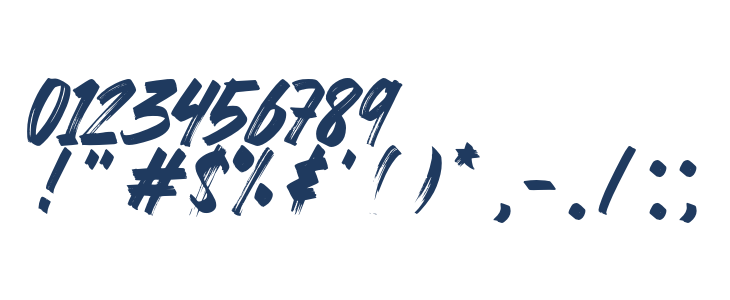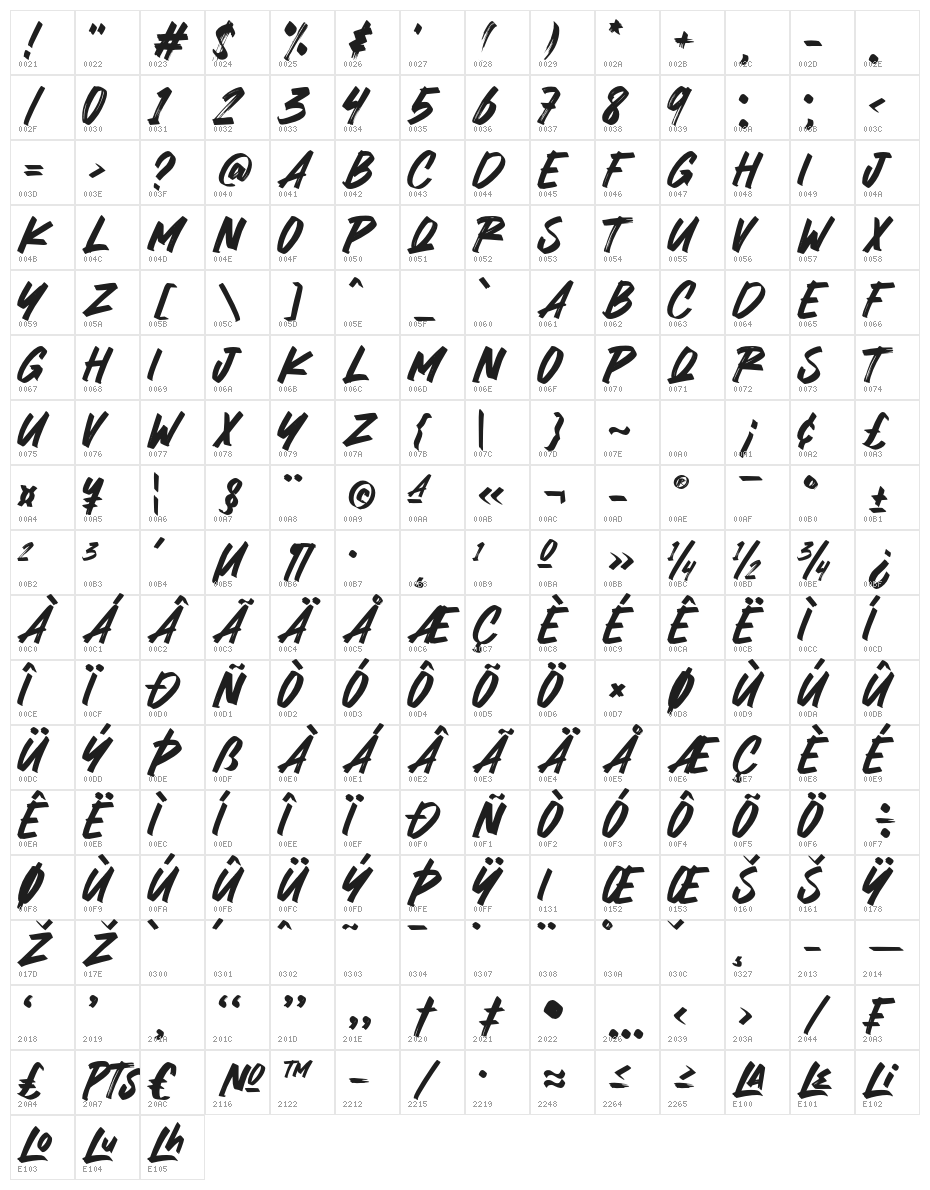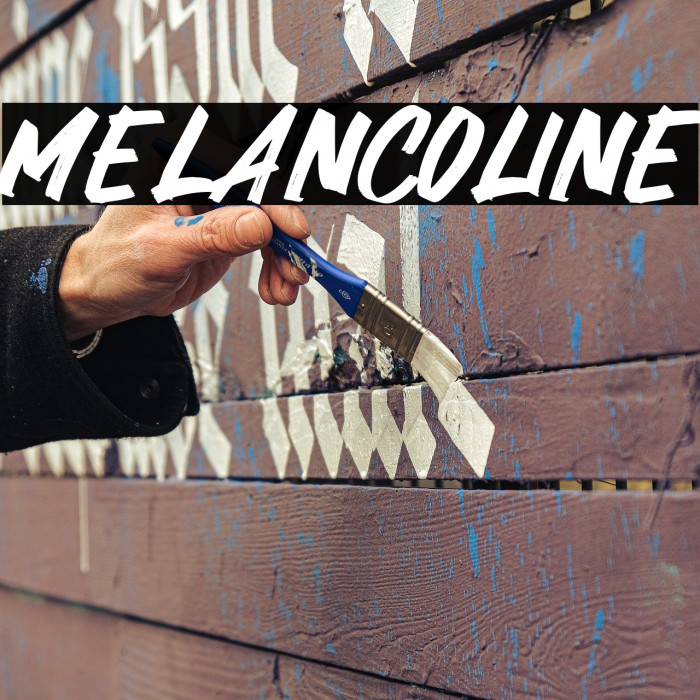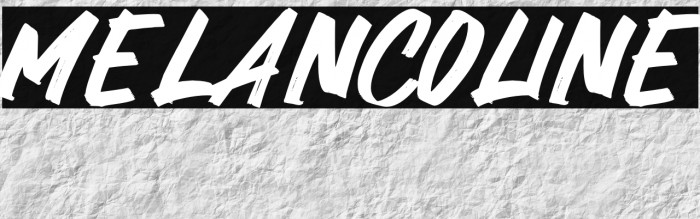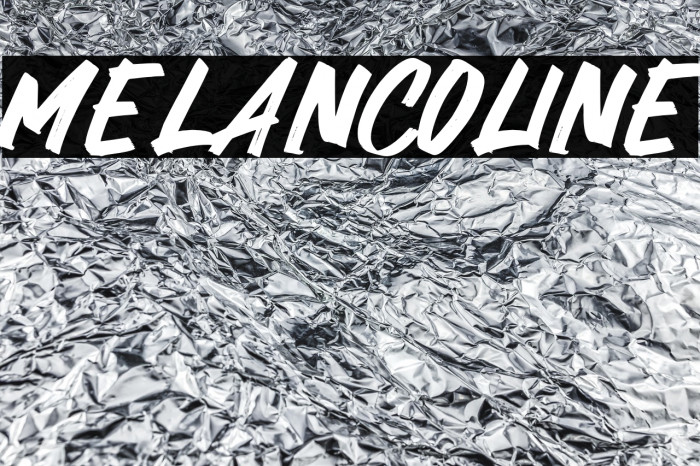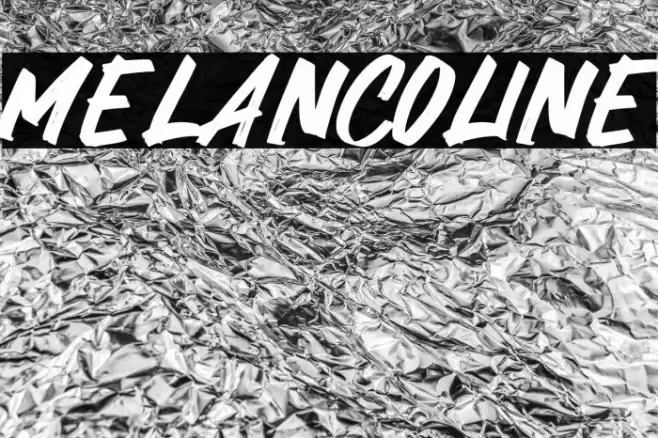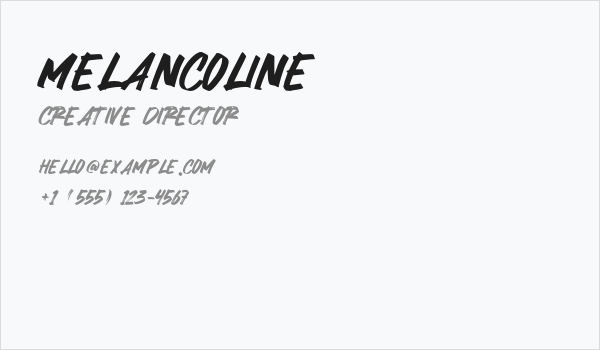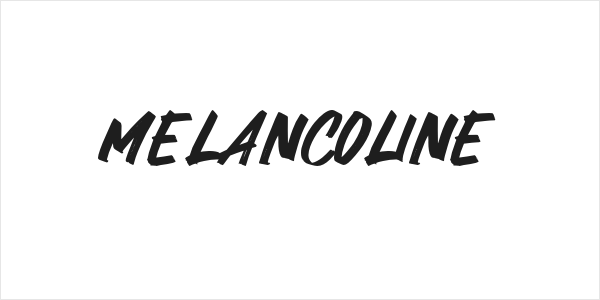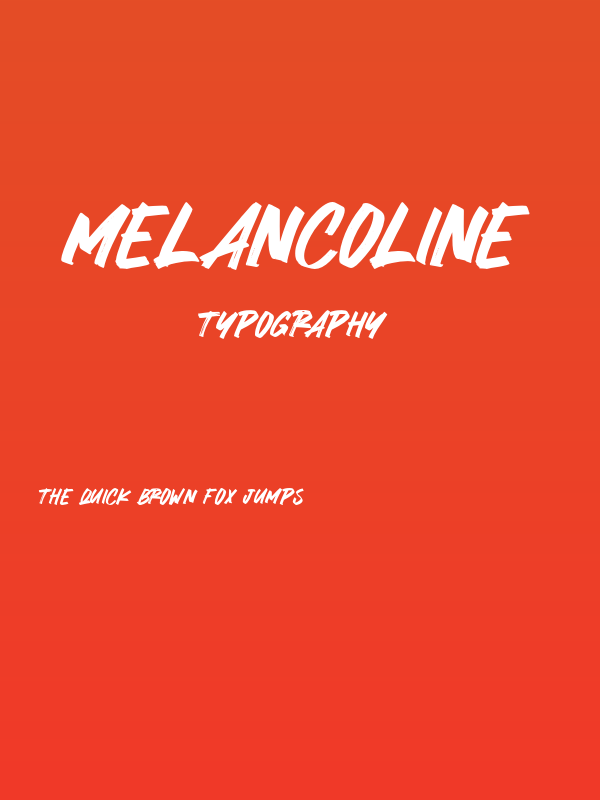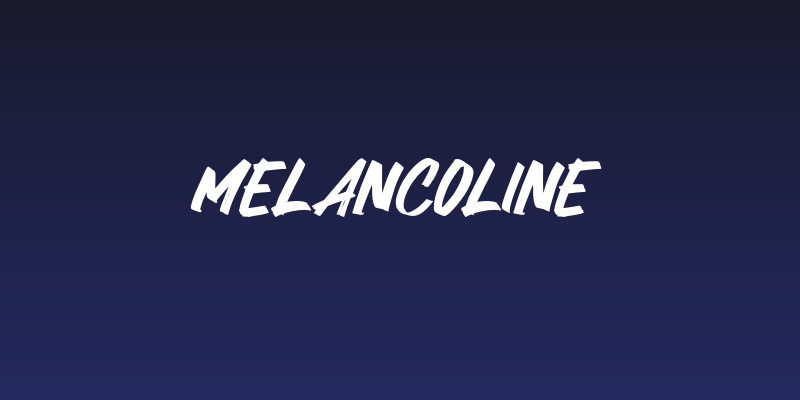
Melancoline Font
Melancoline Description
This font exudes a bold, energetic style with its brush-like strokes and dynamic appearance. The characters are crafted with a sense of movement and flair, giving them a hand-painted look. Each letter features varying stroke thickness, adding to the font's expressive nature. The uppercase and lowercase letters maintain a consistent style, while the numbers and special characters complement the overall design. This font is perfect for projects that require a touch of creativity and boldness.